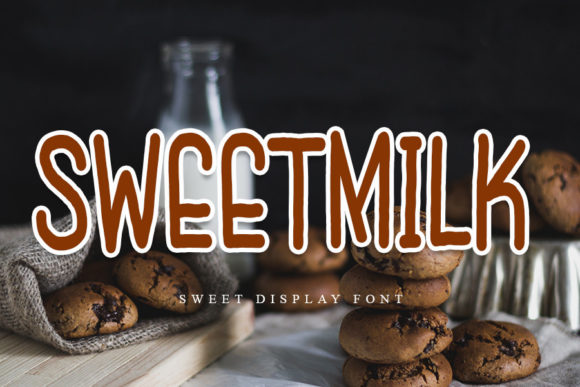
Journey into the realm of elegance with Sweet Milk Font, a display font that gracefully dances across your designs, leaving a trail of captivating charm. Its smooth curves and delicate strokes evoke a sense of timeless beauty, while its versatility makes it a perfect companion for a symphony of creative projects.
Unleash your imagination and let Sweet Milk Font orchestrate the visual symphony of your designs. Whether it's a whisper of romance on wedding invitations, a dash of whimsy on social media graphics, or a touch of sophistication in branding, Sweet Milk Font effortlessly elevates your creations, leaving an indelible mark on your audience.
Step into a world of endless possibilities with Sweet Milk Font, where creativity knows no bounds. Its fluid lines and graceful curves lend themselves seamlessly to logos, posters, packaging, and web design, adding a touch of enchantment to every project.
Embrace the allure of Sweet Milk Font and let its enchanting melodies weave a tapestry of visual intrigue. Its versatility transcends genres, seamlessly blending into invitations, flyers, brochures, and even the delicate artistry of greeting cards.
Immerse yourself in the boundless beauty of Sweet Milk Font, a font that captures the essence of elegance and versatility. Its timeless charm and captivating presence will leave your audience spellbound, eager to witness the unfolding of your creative brilliance.